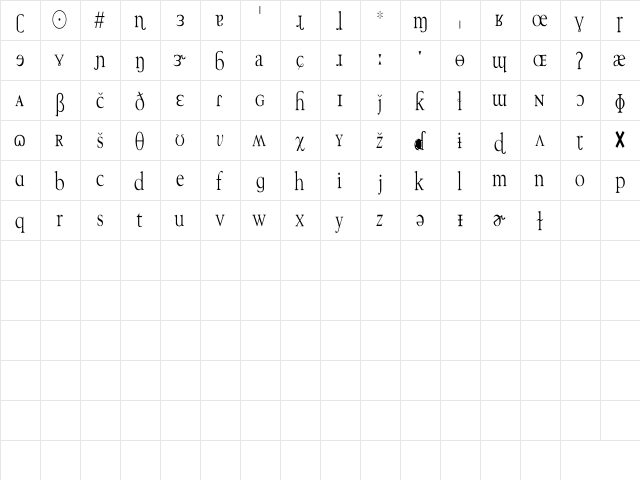
TechPhonetic Cn Regular
Design Context for TechPhonetic Cn Typeface
TechPhonetic Cn channels digital-age aesthetics through its sharp, structured letterforms — ideal for brands that want to signal innovation.